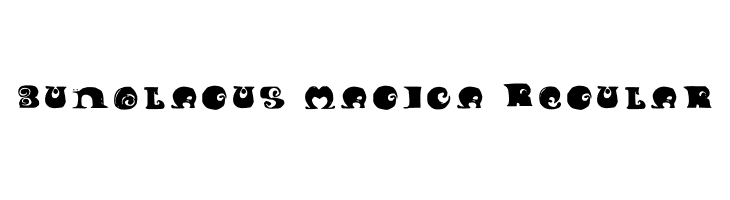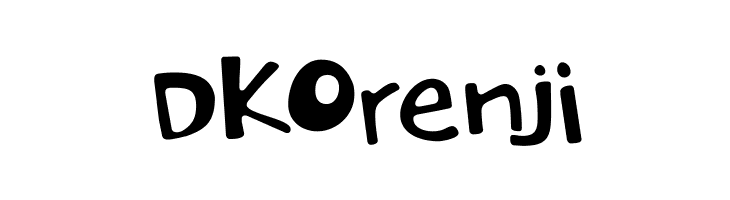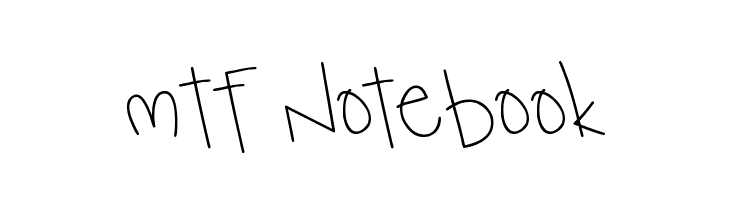
( Fonts by toolag )
A whimsical and decorative font with magical, fairy tale-like elements.
( Fonts by Omega Font Labs )
A bold, grunge-style font with a playful, textured design.
A modern, geometric sans-serif font with consistent stroke width and clear readability.
( Fonts by Hanoded )
A playful, bold, and rounded font with a hand-drawn, cartoonish style.
A display font made from human head silhouettes.
( Fonts by Nur Aisyah Amalia )
A whimsical decorative font with heart-shaped accents on each character.
A bold, expressive handwritten font with dynamic strokes and artistic flair.
A bold, distressed font with a hand-drawn, textured appearance.
( Fonts by Miss Tiina at www.misstiina.com (please check the website before use) )
A playful, whimsical font with quirky, decorative letterforms.